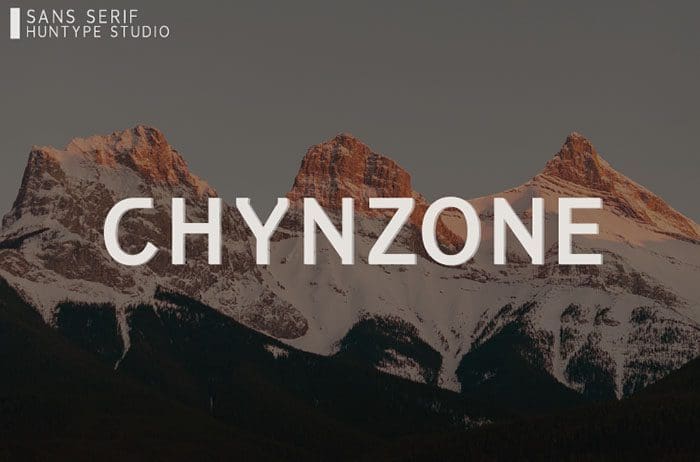
Chynzone Sans Serif Font
Chynzone is a bold sans serif font, carefully handcrafted to become a true favorite. Chynzone will look outstanding in any context, whether it’s being used on busy backgrounds or as a standalone headline. Thanks to Mas Anis for sharing this font! Take a look at this portfolio for more of his stunning fonts.